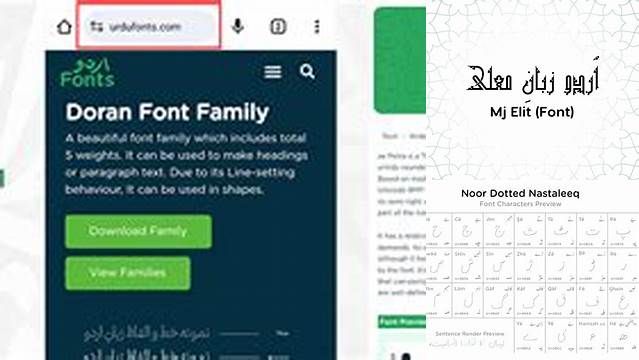
Download Free Islamic Urdu Fonts: A Comprehensive Guide
Introduction to Islamic Urdu Fonts
Hey guys! Are you looking to add a touch of Islamic elegance to your projects? Well, you've come to the right place! In this guide, we'll dive deep into the world of Islamic Urdu fonts, explore why they are so special, and show you where to find the best free downloads. Whether you're designing a website, creating graphics, or working on a personal project, the right font can make all the difference. Islamic Urdu fonts are more than just typefaces; they are a reflection of a rich cultural heritage and artistic tradition. These fonts are specifically designed to showcase the beauty of the Urdu script, which itself is a blend of Persian and Arabic calligraphy. The flowing lines, intricate curves, and unique letterforms make these fonts ideal for a variety of applications, from religious texts and invitations to branding and artistic compositions. The beauty of Islamic Urdu fonts lies in their ability to evoke a sense of spirituality and tradition. Each character is crafted with precision and care, often incorporating elements of traditional Islamic art. This attention to detail ensures that the text not only conveys a message but also adds an aesthetic appeal. When you use an authentic Islamic Urdu font, you're not just typing words; you're preserving and celebrating a centuries-old art form. These fonts are particularly important in the digital age, where visual communication plays a crucial role. By using these fonts, you can ensure that your message resonates with your audience on a deeper level, creating a connection that goes beyond the words themselves. The use of Islamic Urdu fonts extends beyond religious contexts. They are increasingly popular in graphic design, branding, and even in personal projects such as invitations and greeting cards. Their versatility and elegance make them a favorite among designers and artists who want to add a unique and sophisticated touch to their work. So, if you're ready to explore the captivating world of Islamic Urdu fonts, keep reading! We'll guide you through the best resources for free downloads and give you tips on how to use them effectively.
Why Use Islamic Urdu Fonts?
Okay, so why should you even bother with Islamic Urdu fonts? Good question! There are actually several compelling reasons. First and foremost, they add a distinct cultural and artistic flair to your work. Imagine using a standard, run-of-the-mill font for a project that celebrates Islamic culture – it just wouldn't have the same impact, right? These fonts are designed to capture the essence of Islamic art and calligraphy, making your text visually stunning and culturally relevant. Another significant reason to use Islamic Urdu fonts is their versatility. You might think they're only suitable for religious texts, but that's not the case at all! These fonts can be used in a wide range of applications, from website headers and logos to wedding invitations and greeting cards. Their elegant and flowing designs make them a perfect choice for any project that requires a touch of sophistication. Furthermore, using the right font can significantly enhance readability. Islamic Urdu fonts are carefully crafted to ensure that each letter is clear and legible, making your text easy to read and understand. This is particularly important when dealing with complex scripts like Urdu, where the shape and form of each character play a crucial role in conveying meaning. Think about the impact a beautifully designed poster with an Islamic Urdu font can have, or the elegance it can bring to a personal invitation. The right font can truly elevate your project, making it stand out and leave a lasting impression. In addition to their aesthetic appeal, these fonts also help preserve and promote cultural heritage. By using them in your projects, you're contributing to the continued appreciation and use of the Urdu script and Islamic calligraphy. This is especially important in today's digital world, where traditional art forms often struggle to find their place. Finally, let's talk about free downloads. Who doesn't love free stuff, right? The good news is that there are many high-quality Islamic Urdu fonts available for free download, making it easy to add a touch of elegance to your projects without breaking the bank. We'll show you exactly where to find them in the sections below, so keep reading! So, if you're looking to add a touch of cultural richness, elegance, and sophistication to your projects, Islamic Urdu fonts are the way to go. They're versatile, beautiful, and often available for free. What's not to love?
Popular Islamic Urdu Fonts to Download
Okay, now that we know where to find them, let's talk about some specific Islamic Urdu fonts that you should definitely check out! There are tons of options out there, but we've handpicked a few popular and versatile fonts to get you started. First up, we have "Alvi Nastaleeq." This is a classic and widely used font for Urdu typography. It's known for its elegant and flowing script, making it perfect for formal documents, poetry, and literary works. Alvi Nastaleeq is a staple in the world of Islamic Urdu fonts and a must-have in your font collection. Another great option is "Jameel Noori Nastaleeq." This font is another popular choice for Nastaleeq script, which is the traditional style of Urdu calligraphy. Jameel Noori Nastaleeq is known for its clarity and readability, making it suitable for both print and digital media. It's a versatile font that can be used in a variety of projects, from books and magazines to websites and posters. For a more modern and contemporary look, consider "Nafees Nastaleeq." This font offers a slightly different take on the traditional Nastaleeq style, with a cleaner and more streamlined design. Nafees Nastaleeq is a great choice for projects that require a touch of modernity while still maintaining the elegance of Urdu calligraphy. If you're looking for something bold and impactful, "Urdu Typesetting" is worth checking out. This font is designed for headlines and titles, with strong and prominent characters that grab attention. Urdu Typesetting is perfect for posters, banners, and any project where you want to make a statement. In addition to these Nastaleeq fonts, there are also several other styles of Islamic Urdu fonts available, such as Naskh and Kufic. Naskh fonts are known for their simplicity and clarity, while Kufic fonts are characterized by their geometric and angular designs. Exploring these different styles can help you find the perfect font for your specific needs. When choosing a font, consider the overall tone and style of your project. A formal and traditional project might benefit from a classic Nastaleeq font, while a more modern project might call for a cleaner and more contemporary typeface. It's also important to think about readability. Make sure the font you choose is easy to read, especially if you're dealing with long passages of text. Finally, don't be afraid to experiment and try out different fonts. The best way to find the perfect font is to see how it looks in your project. Download a few different options and play around with them until you find the one that truly captures the essence of your message. Remember, the right Islamic Urdu font can make a world of difference in your design. So, take your time, explore your options, and choose wisely!
Tips for Using Islamic Urdu Fonts Effectively
So, you've got your Islamic Urdu fonts installed and you're ready to roll – awesome! But before you start typing away, let's talk about some tips to help you use these fonts effectively. After all, just having a beautiful font isn't enough; you need to know how to use it properly to achieve the best results. First and foremost, consider the context of your project. What kind of message are you trying to convey? Is it formal and traditional, or modern and contemporary? The font you choose should align with the overall tone and style of your project. For formal occasions, such as wedding invitations or religious texts, a classic Nastaleeq font like Alvi Nastaleeq or Jameel Noori Nastaleeq is a great choice. These fonts exude elegance and sophistication, making them perfect for projects that require a touch of formality. On the other hand, if you're working on a more modern project, such as a website or a poster, you might want to opt for a cleaner and more contemporary font like Nafees Nastaleeq. This font offers a streamlined design that works well in digital media while still maintaining the beauty of Urdu calligraphy. Think about the readability of your font as well. While Islamic Urdu fonts are beautiful, some can be quite intricate and challenging to read, especially for those who are not familiar with the Urdu script. If your text is going to be read by a wide audience, choose a font that is clear and legible. Avoid using overly decorative or stylized fonts for long passages of text, as they can strain the reader's eyes. Pay attention to kerning and spacing. As we mentioned earlier, kerning is the space between individual characters, and it plays a crucial role in readability. Urdu script has unique letter combinations and ligatures, so it's important to ensure that the spacing between letters is consistent and visually appealing. Some fonts may require manual kerning adjustments to achieve the desired effect. Consider the size of your text. Islamic Urdu fonts often look best when used at larger sizes, as this allows the intricate details of the calligraphy to shine through. However, you don't want to make your text too large, as this can make it look overwhelming and cluttered. Experiment with different sizes to find the perfect balance for your project. Use color strategically. The color of your text can have a significant impact on its overall appearance. Dark colors like black, navy blue, and deep green often work well with Islamic Urdu fonts, as they provide a strong contrast against a light background. However, you can also experiment with lighter colors or even metallic shades to create a more unique and eye-catching effect. Don't be afraid to mix and match fonts. While it's generally a good idea to limit the number of fonts you use in a single project, you can create a visually interesting design by pairing an Islamic Urdu font with a complementary Latin font. For example, you might use an Urdu font for headlines and a simple sans-serif font for body text. Remember, practice makes perfect. The more you work with Islamic Urdu fonts, the better you'll become at using them effectively. Experiment with different fonts, layouts, and designs to discover what works best for you. And most importantly, have fun and let your creativity flow!
Conclusion: Embrace the Beauty of Islamic Urdu Fonts
So, there you have it, guys! A comprehensive guide to the wonderful world of Islamic Urdu fonts. We've covered everything from why you should use them to where to find them and how to use them effectively. Hopefully, you're now feeling inspired and ready to incorporate these beautiful fonts into your projects. Islamic Urdu fonts are more than just typefaces; they are a testament to the rich cultural heritage and artistic traditions of the Islamic world. They offer a unique way to express yourself and add a touch of elegance and sophistication to your designs. Whether you're working on a personal project, a professional design, or anything in between, the right Islamic Urdu font can make all the difference. The key takeaways from this guide are: 1. Why Use Islamic Urdu Fonts? They add cultural and artistic flair, are versatile, enhance readability, preserve cultural heritage, and many are available for free. 2. Where to Find Free Islamic Urdu Fonts: Explore dedicated font websites, the Open Font Library, Islamic design resources, and online communities. 3. Popular Islamic Urdu Fonts to Download: Check out Alvi Nastaleeq, Jameel Noori Nastaleeq, Nafees Nastaleeq, and Urdu Typesetting, among others. 4. How to Install and Use Urdu Fonts: Install the font on your computer, enable Urdu language support, select the font in your application, and adjust text direction and kerning as needed. 5. Tips for Using Islamic Urdu Fonts Effectively: Consider the context of your project, ensure readability, pay attention to kerning and spacing, choose the right size and color, and don't be afraid to experiment. By following these guidelines, you can master the art of using Islamic Urdu fonts and create stunning designs that capture the beauty and elegance of Urdu calligraphy. Remember, the world of typography is vast and exciting, and there's always something new to discover. So, keep exploring, keep experimenting, and most importantly, keep creating! We hope this guide has been helpful and informative. Now go out there and embrace the beauty of Islamic Urdu fonts in your work. Let your creativity shine, and let these fonts help you tell your story in a unique and captivating way. Happy designing!